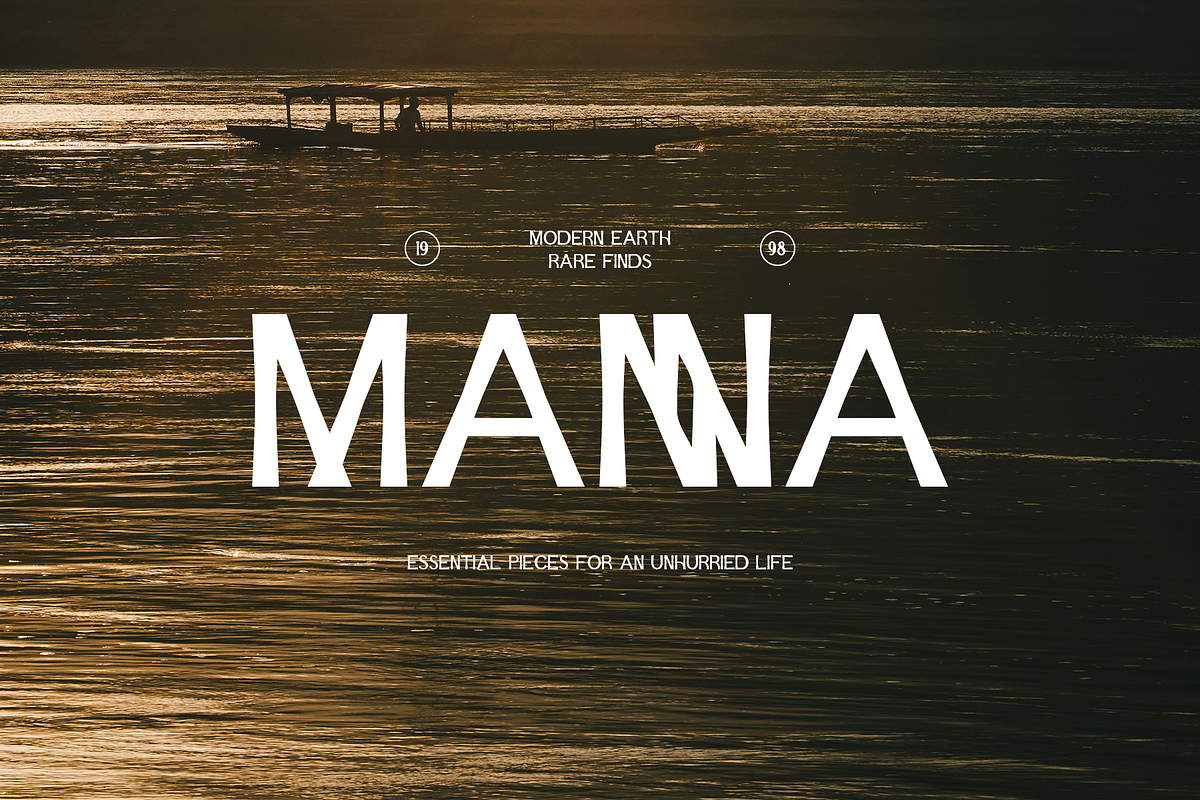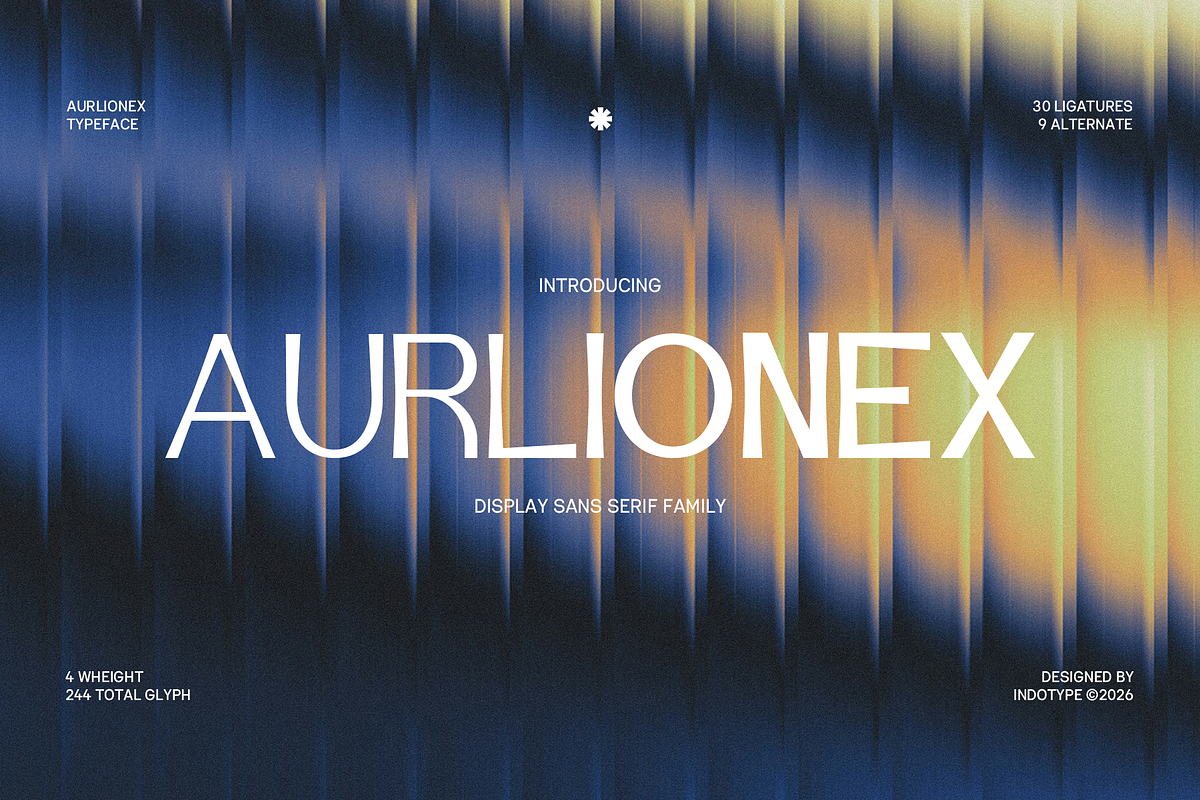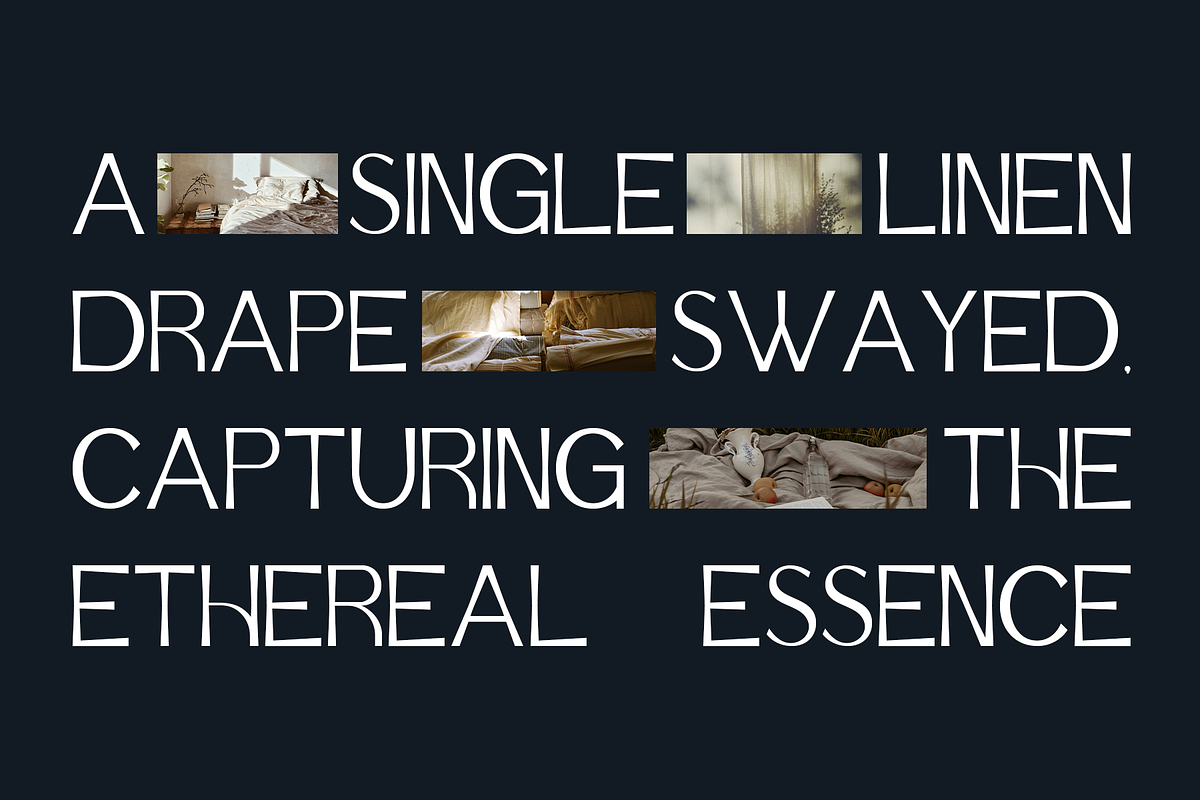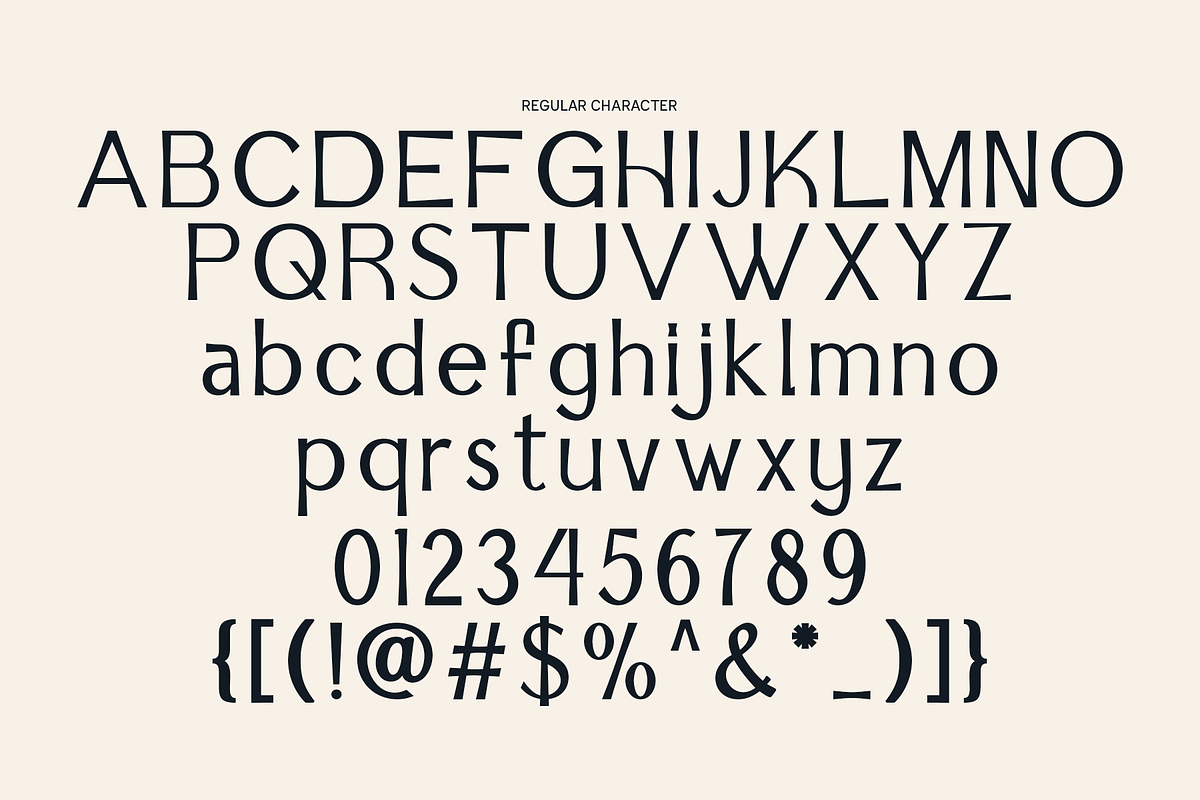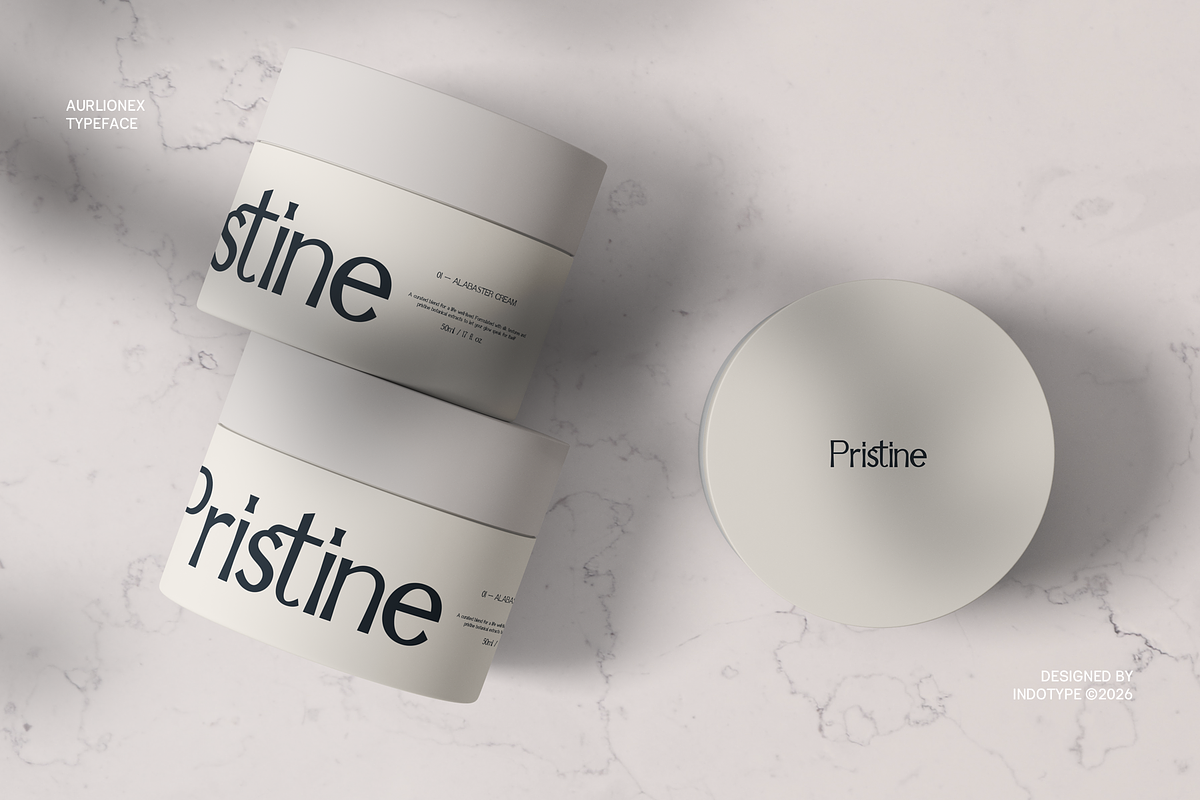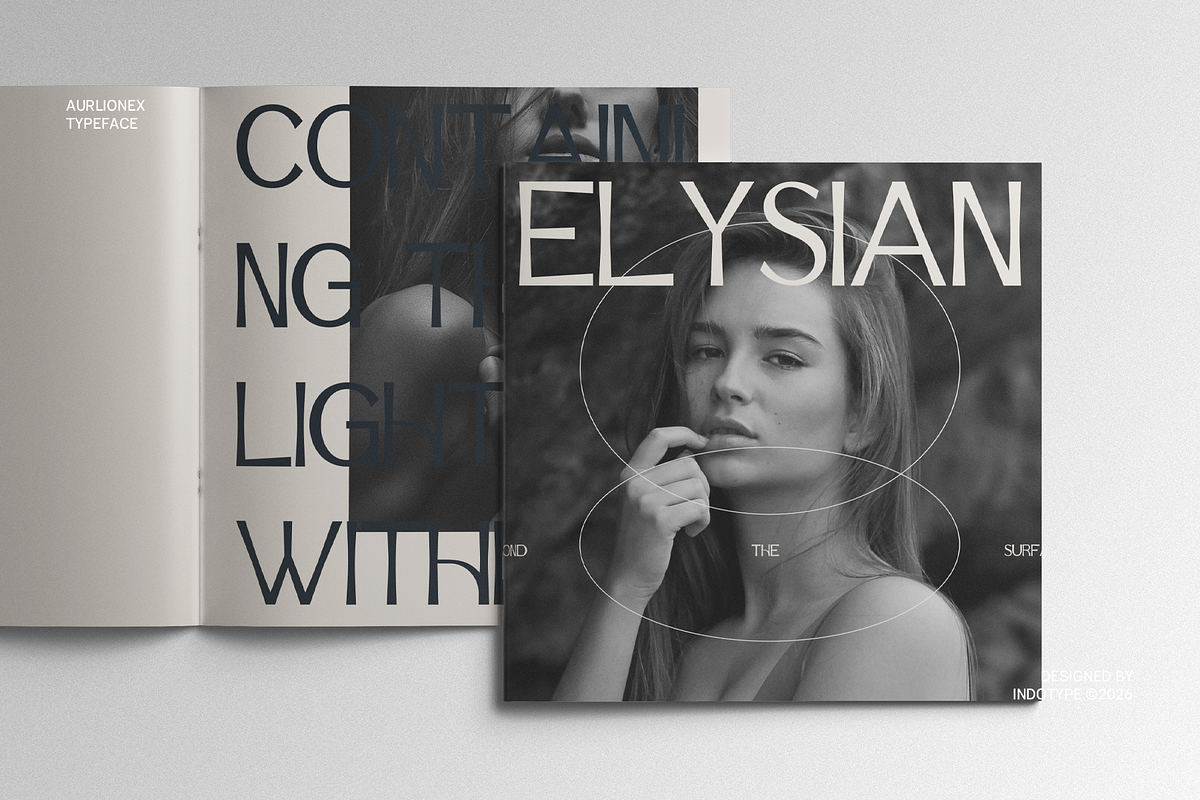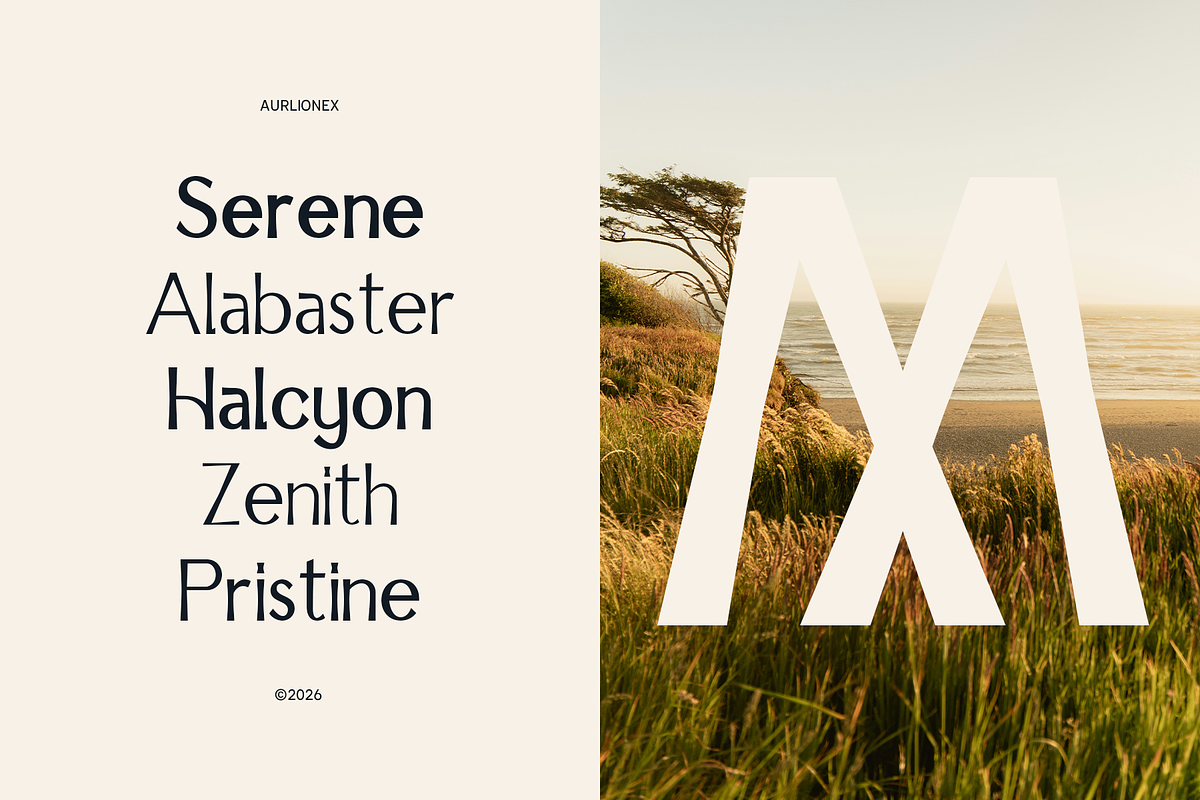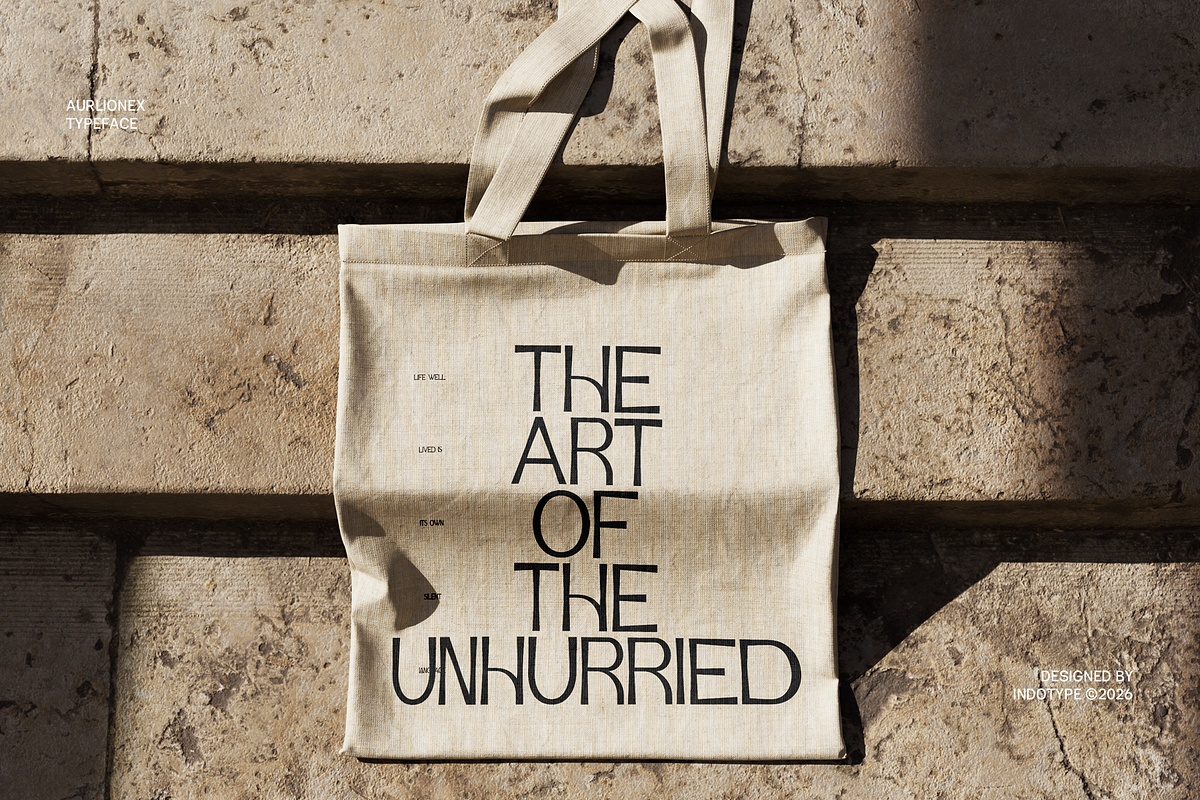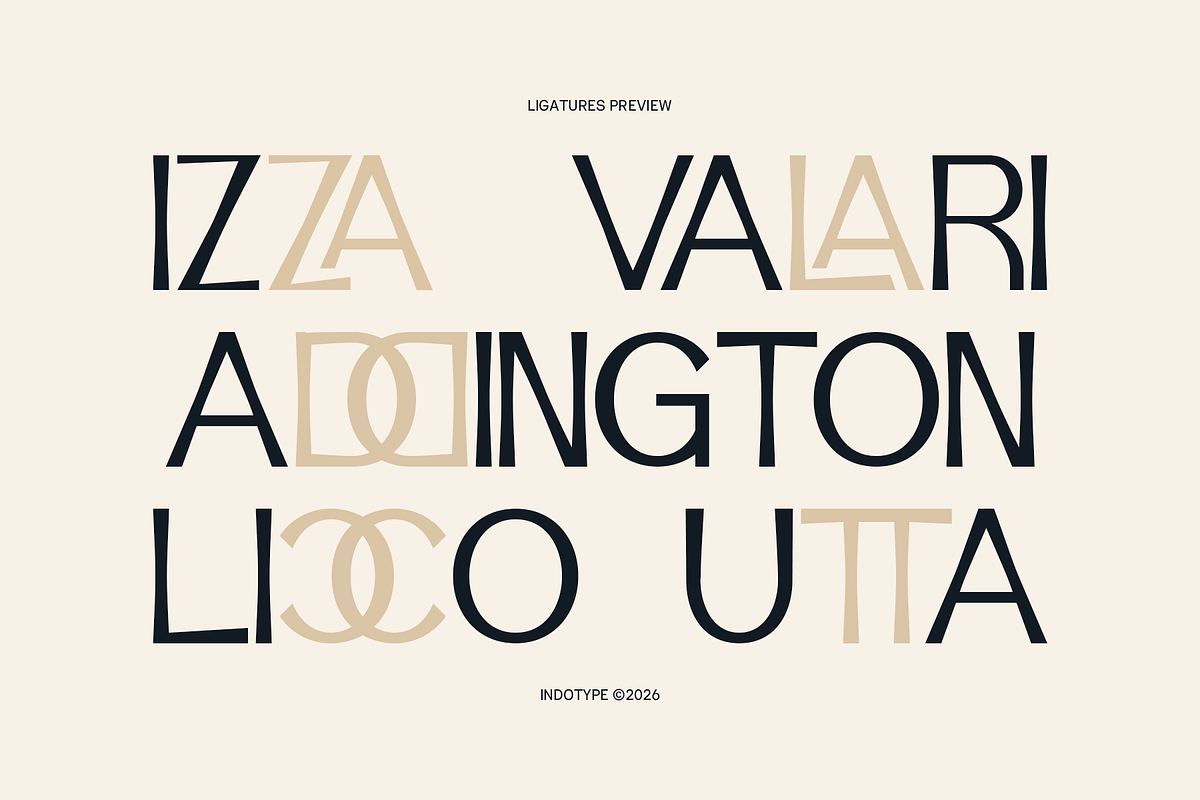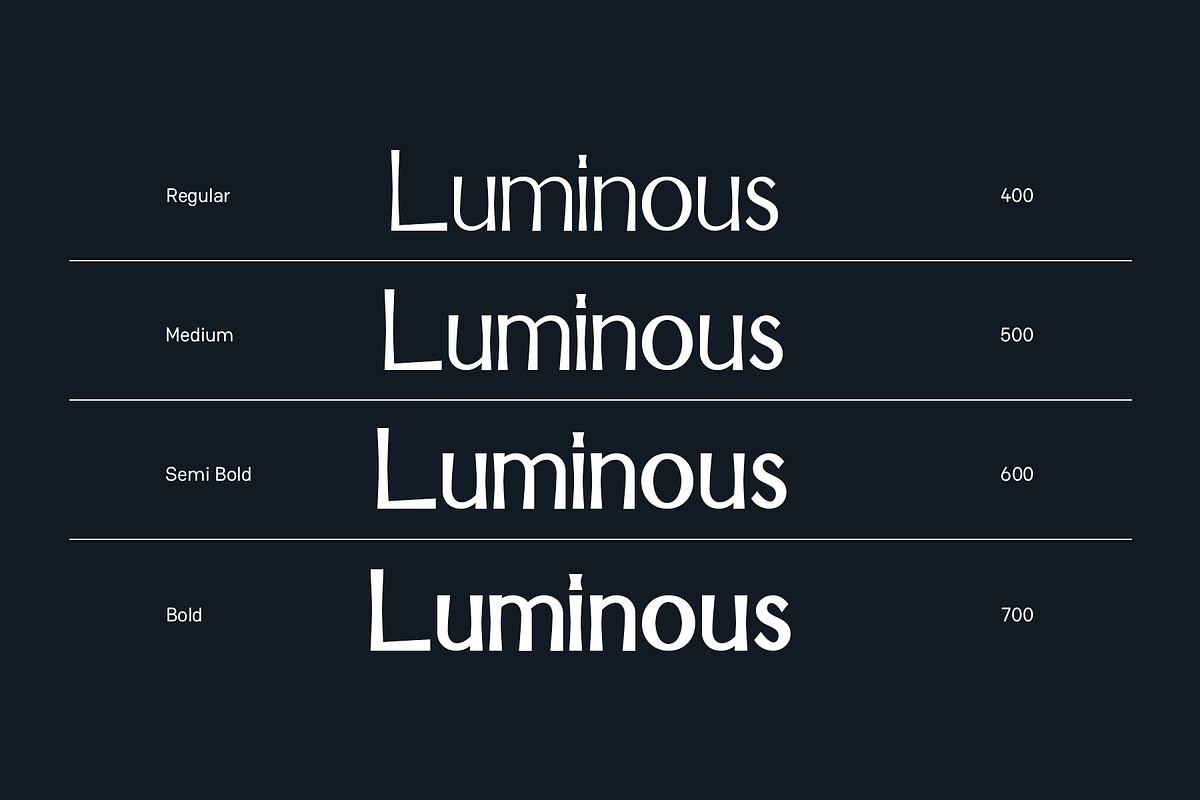
Aurlionex - Display Sans Family
Aurlionex is a sophisticated and highly versatile display sans-serif family designed for creatives who demand both flexibility and personality. With its clean geometric foundations and subtle contemporary details, this typeface strikes the perfect balance between modern clarity and expressive character. Whether used for bold headlines or refined branding, Aurlionex delivers impact with elegance. This comprehensive family offers exceptional creative control with 4 weights ranging from light to extra bold, ensuring tonal versatility across any project. With a rich set of 244 total glyphs, including 30 stylish ligatures and 9 alternate characters, Aurlionex empowers designers to craft unique, custom typographic compositions that stand out. It's not just a font family—it's a complete toolkit for distinctive display typography.
- Ideal for: Brand Identity Systems, Editorial Headlines, Packaging Design, Advertising Campaigns, Logo Design, Digital Platforms.
- Classification: Sans-Serif, Display, Geometric, Family.
- Attributes: Versatile, Modern, Clean, Expressive, Customizable, Professional, Distinctive.